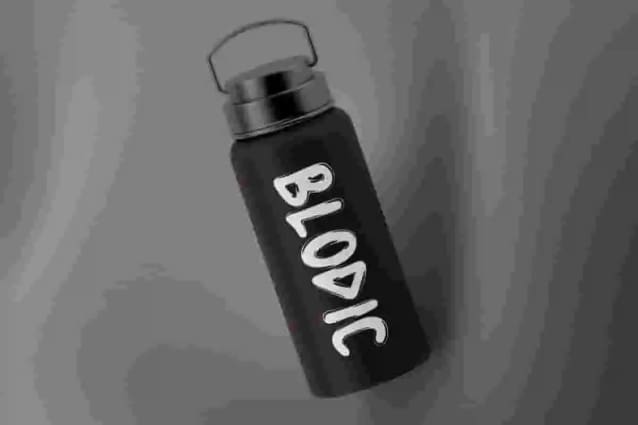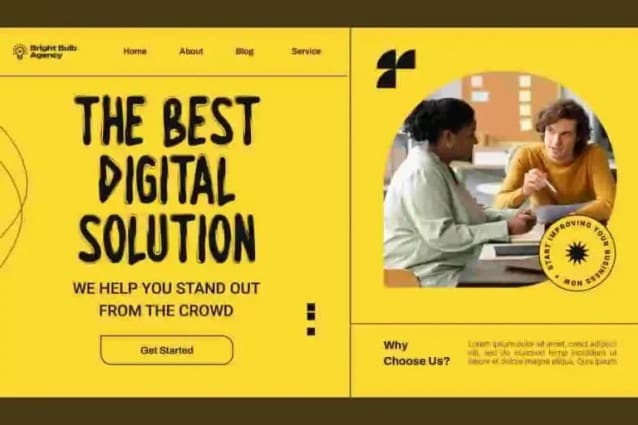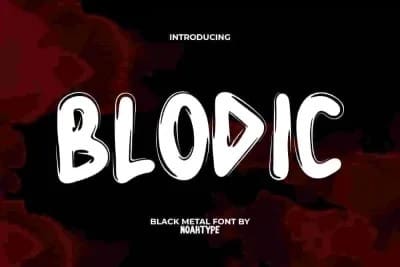
Blodic Font is a playful sketched textured fat bubbly comic with influence of Black Metal font by NoahType. This font has a somewhat cartoonish look with characters that appear to be in bubbles without reducing the spooky feel. It will be awesome for any designs, such as custom design, brand image, poster, label, invitation, cover, marketing material, menu, printing, product packaging, quotes, signage, website, and many more!
Blodic Font includes full set of ALL CAPS for Uppercase and Lowercase Basic Characters, Numerals, Punctuation, and Symbol. This unique font will make your design cool and also a perfect choice for many industries, such as game, movie, comic, music, accessories, advertising, art, café, event or festival, fashion, printing, publishing, etc.